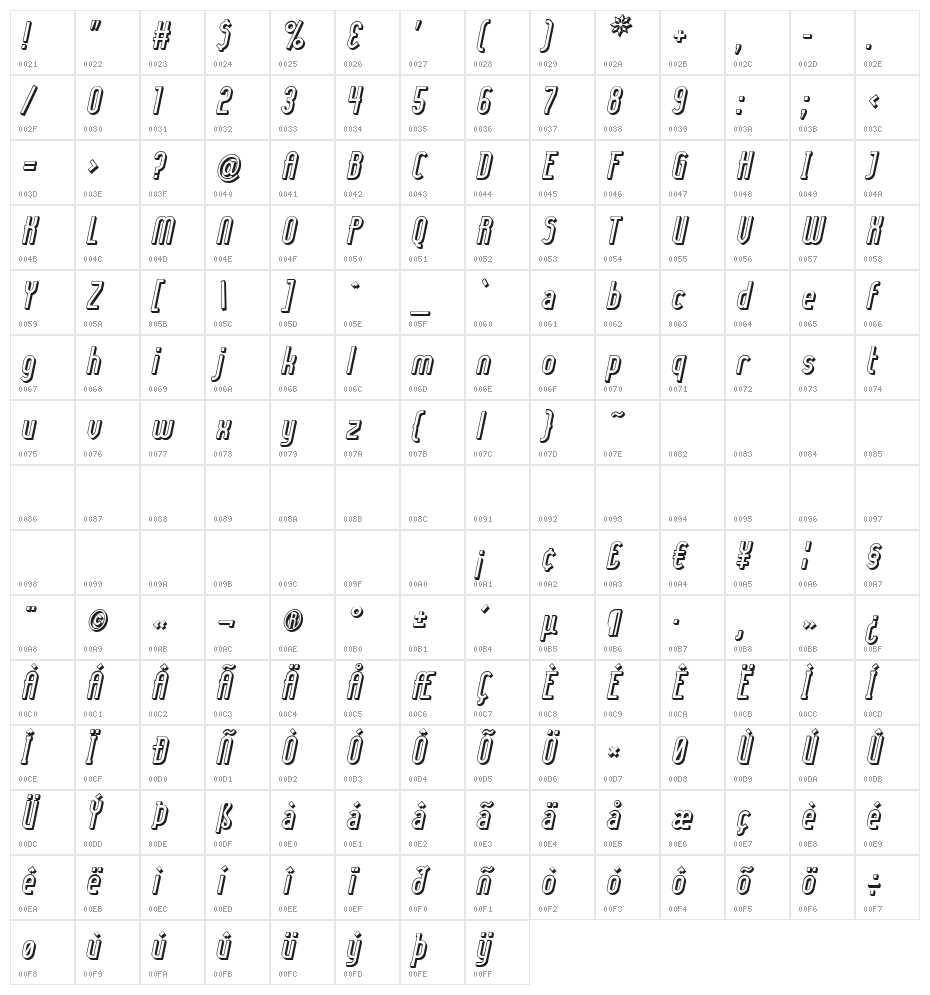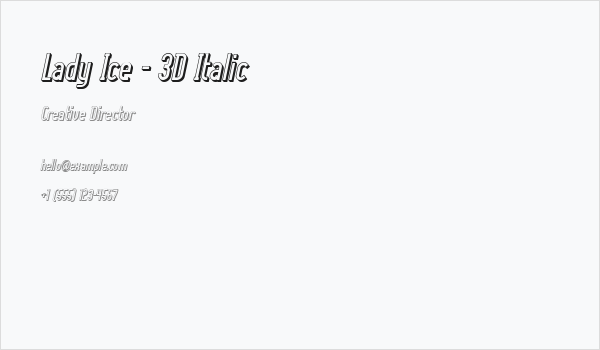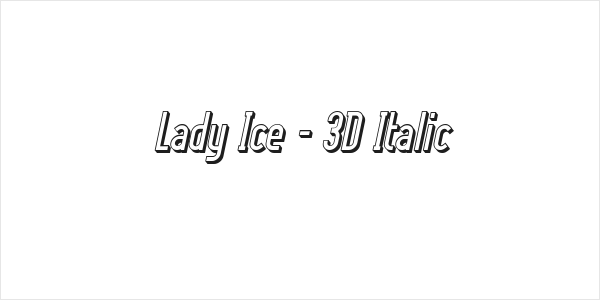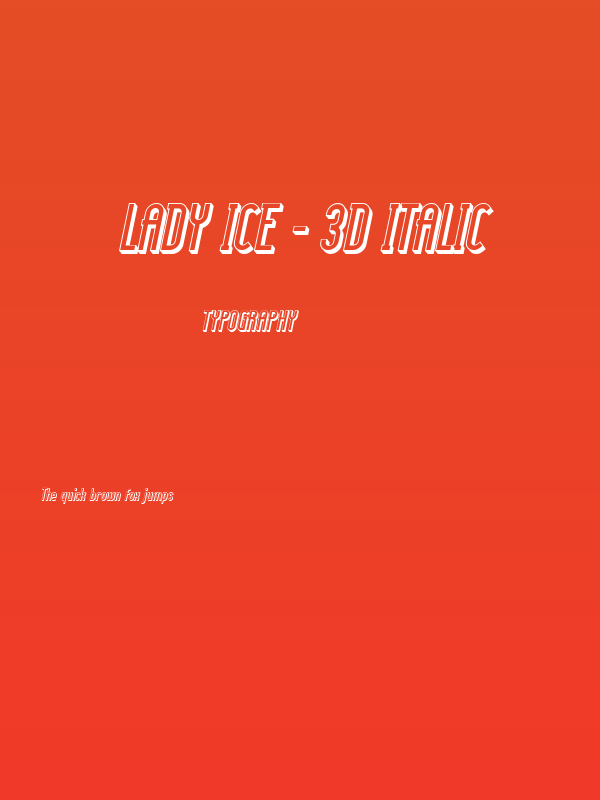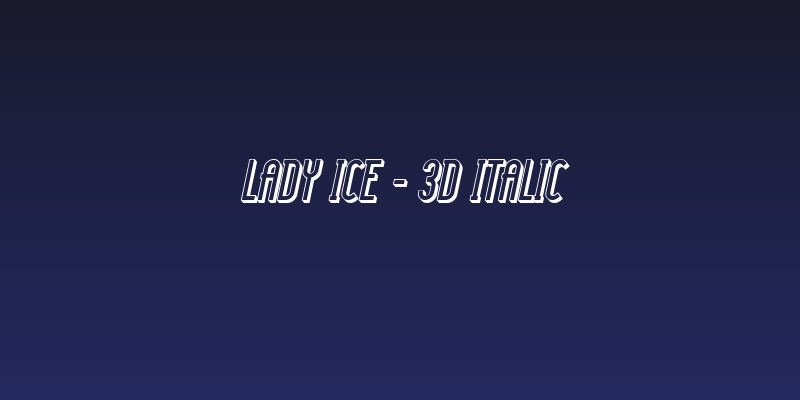
Lady Ice - 3D Italic Font
Lady Ice - 3D Italic Description
This font features a bold, three-dimensional design with an italic slant, giving it a dynamic and modern appearance. The characters are outlined with a shadow effect, enhancing the 3D illusion and adding depth. The uppercase and lowercase letters maintain a consistent style, with smooth curves and sharp edges that create a sense of movement. The numerals and special characters are designed to match the overall aesthetic, making the font versatile for various uses. The spacing between characters is slightly tight, which complements the boldness and ensures readability. This font is ideal for projects that require a striking and contemporary look.
| Proposed Projects | Ideal for headlines, posters, logos, and any design needing a bold, eye-catching typeface. |